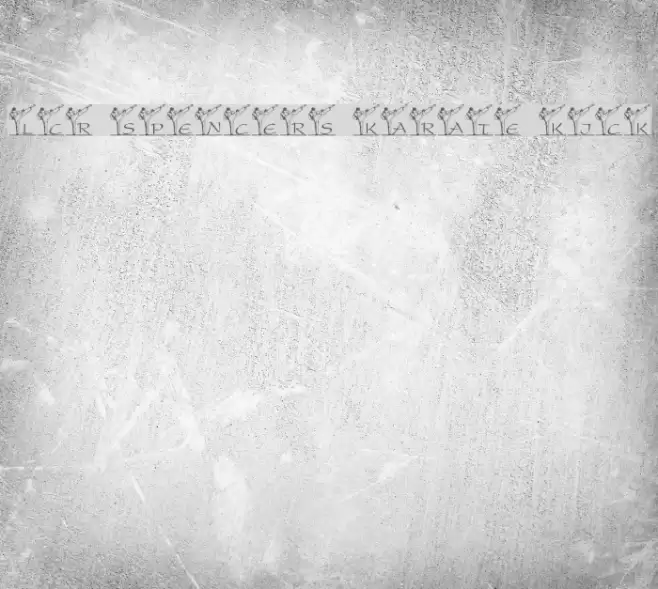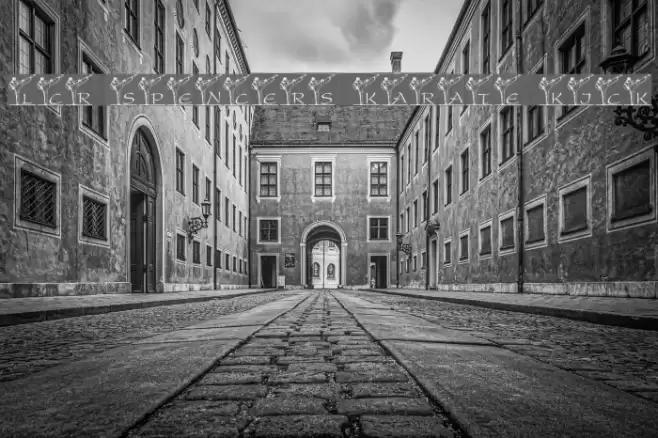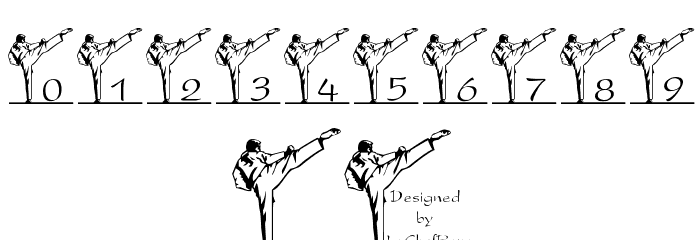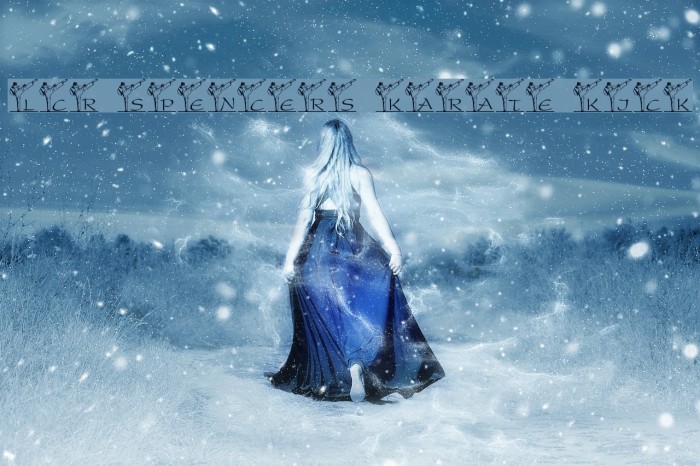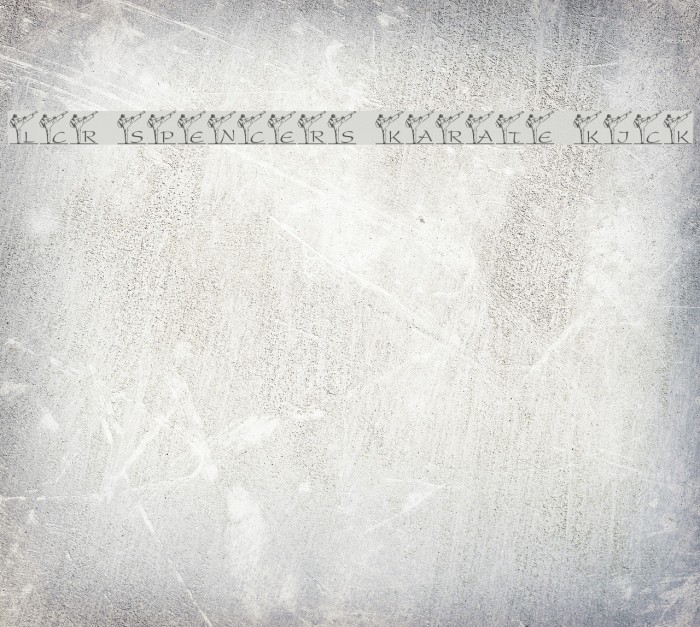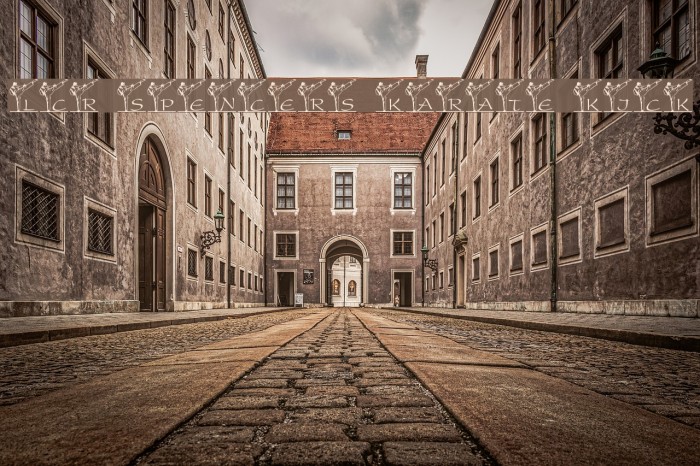
LCR Spencer's Karate Kick Font
LCR Spencer's Karate Kick Description
This unique and playful font features characters integrated with a karate kick motif, where each letter and number is accompanied by a figure performing a high kick. The design is highly decorative, merging martial arts imagery with typography, creating a dynamic and energetic visual impact. The characters are uppercase and numerals, with each letter and number having a consistent style that emphasizes movement and action. The font is ideal for projects that require a bold and thematic approach, particularly those related to sports, martial arts, or youth-oriented designs.
A decorative font combining letters with karate kick figures, ideal for dynamic and thematic designs from Uncategorized fonts.
- Proposed Projects: Perfect for sports event posters, martial arts school branding, youth-oriented marketing materials, and themed merchandise.
- Use Case: Logos, Posters, Themed Merchandise